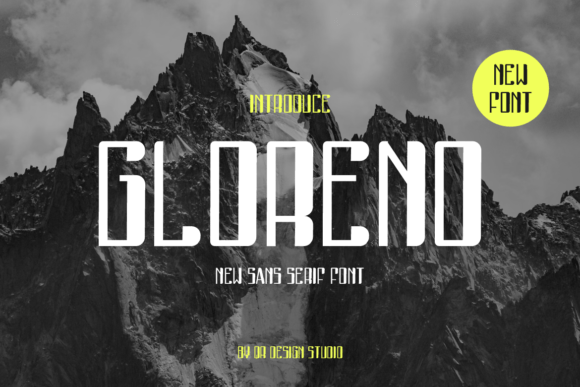
Dive into the realm of athleticism and power with Gloreno Font, the ultimate sans serif font for sports enthusiasts. Its bold strokes and assertive presence will ignite a surge of energy into your sports posters, leaving an unforgettable impact on your audience.
Visualize the roar of the crowd, the thrill of the game, and the unwavering determination of athletes captured in every letterform. Gloreno Font isn't just a font; it's a visual symphony that orchestrates a symphony of emotions, transporting you to the heart of the action.
With Gloreno Font, you'll unlock a world of creative possibilities. Design posters that embody the spirit of competition, the grace of movement, and the indomitable will to succeed. Whether you're a seasoned designer or just starting your creative journey, Gloreno Font will elevate your work to new heights.
Don't settle for ordinary fonts. Embrace the dynamic energy of Gloreno Font and unleash your creativity. Let your sports posters ignite passion, inspire action, and leave a lasting impression that resonates with every viewer.